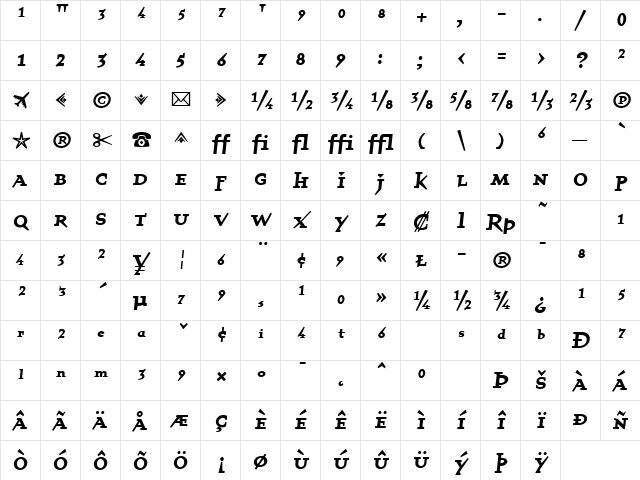
QuartetFractionsBold Bold
Design Context for QuartetFractionsBold
QuartetFractionsBold is a composed and adaptable typeface that performs quietly and consistently across a wide range of design contexts. Its bold stroke weight gives it real presence on the page.